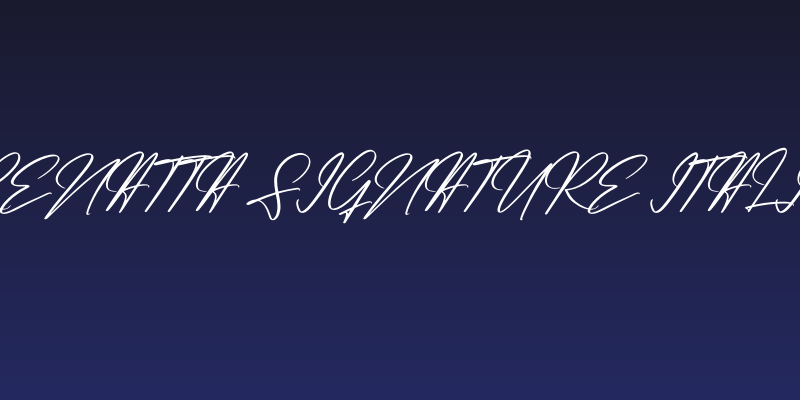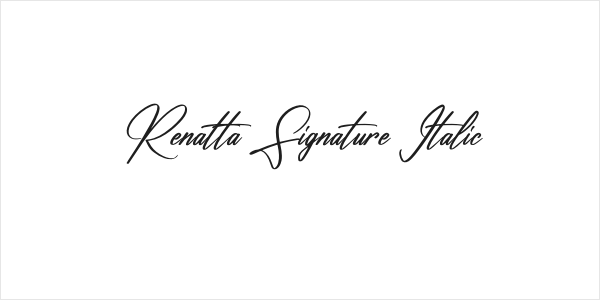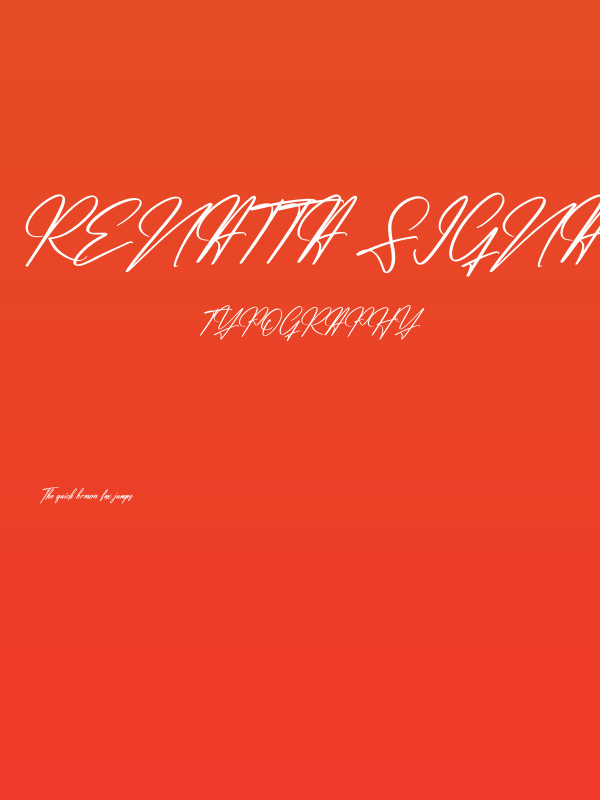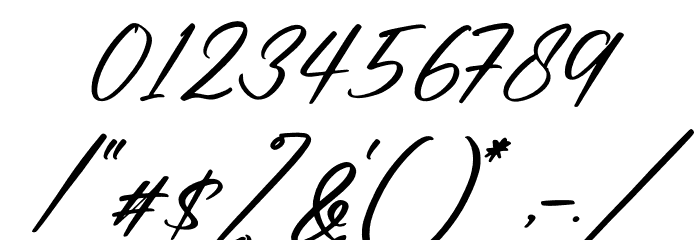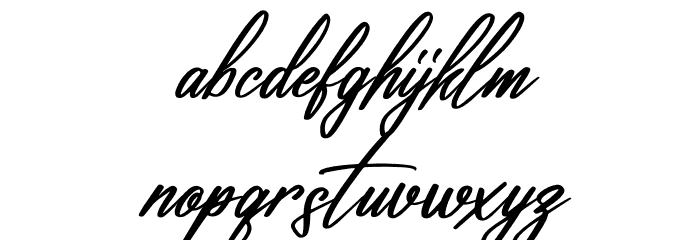
Renatta Signature Italic Font
Renatta Signature Italic Description
This font exudes elegance and sophistication with its fluid, cursive style. The letters are interconnected, creating a seamless flow that mimics natural handwriting. Each character is crafted with a delicate balance of thick and thin strokes, adding a dynamic contrast that enhances readability while maintaining an artistic flair. The uppercase letters are bold and prominent, making a strong statement, while the lowercase letters are more subdued, offering a graceful complement. The numerals and special characters are designed with the same attention to detail, ensuring consistency throughout. This font is perfect for projects that require a touch of class and individuality.
| Overall Style | Elegant |
| Use Case | Logos, Invitations, Personal Branding |
| Proposed Projects | Ideal for wedding invitations, personal branding, elegant logos, and high-end product packaging. |